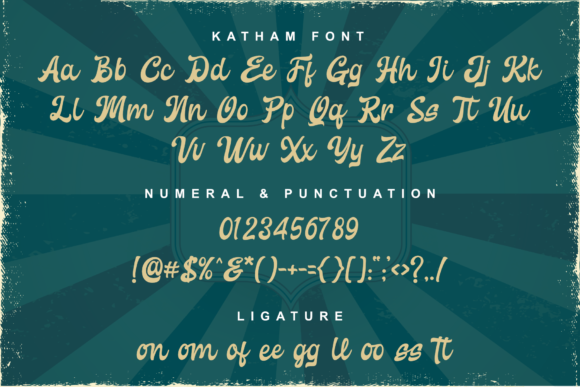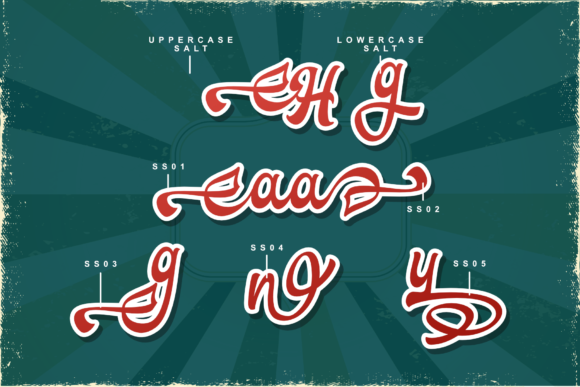
Katham Font
db-ku.com - Script & Handwritten -- Katham is a retro-inspired script font with a stunning style. Use it to make your ideas even more realistic and create spectacular designs!